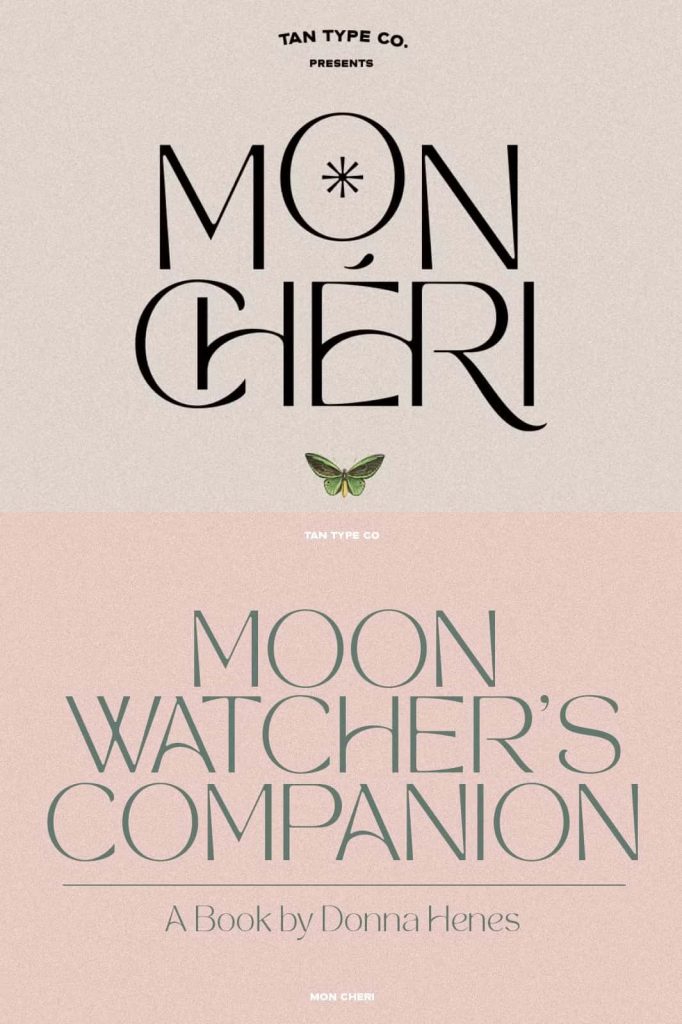
TAN – MON CHERI
TAN – MON CHERI Elegant Sans Serif Font
TAN – MON CHERI is an elegant sans serif font designed to bring simplicity, charm, and modern sophistication into your typography. With its clean letter shapes and carefully crafted details, this typeface offers a refined aesthetic that works beautifully across a wide range of design projects. It combines minimal structure with playful ligatures, allowing designers to create visually engaging compositions while maintaining excellent readability.
Clean and Modern Letterforms
TAN – MON CHERI focuses on clarity and balance. Its simple letter shapes create a clean foundation that supports both subtle and bold design directions. The font avoids unnecessary complexity, ensuring that each character remains easy to read while still contributing to an overall elegant appearance.
This modern approach makes the font highly adaptable. Whether you are designing for digital platforms or print materials, TAN – MON CHERI delivers consistent performance and a polished look. Its clean structure helps your content stand out without overwhelming the viewer.
Playful Ligatures for Creative Expression
One of the defining features of TAN – MON CHERI is its playful ligatures. These unique character combinations add personality and variation to your typography, helping your designs feel more dynamic and less mechanical. Instead of relying on repetitive letterforms, you can introduce subtle stylistic changes that enhance visual interest.
The ligatures integrate seamlessly into the font, ensuring that they complement the overall design rather than distract from it. Designers can use them selectively to highlight specific words or create distinctive typographic styles.
High Legibility Across All Uses
Despite its decorative elements, TAN – MON CHERI maintains high legibility in every context. The font’s balanced proportions and clear spacing ensure that text remains easy to read, even when used in longer passages or smaller sizes. This makes it suitable for both display and functional typography.
Designers can confidently use this font for headlines, subheadings, and even body text when appropriate. Its readability ensures that your message remains clear while still benefiting from the font’s elegant style.
Versatile for Branding and Editorial Design
TAN – MON CHERI adapts effortlessly to various design applications. It works particularly well in branding projects where a clean yet distinctive visual identity is essential. The font communicates professionalism while still offering a touch of creativity through its ligatures and refined details.
In editorial design, it helps create structured and visually appealing layouts. Use it for magazine headlines, feature titles, or promotional materials to achieve a modern and cohesive look. Its versatility allows you to maintain consistency across different types of content.
Perfect Balance of Simplicity and Style
This font strikes a careful balance between simplicity and expression. Its minimal design ensures clarity, while its subtle decorative features add character and uniqueness. This combination makes TAN – MON CHERI suitable for projects that require both professionalism and personality.
Designers can use it to create logos, packaging, social media graphics, and marketing materials. Its adaptability allows it to fit a wide range of visual styles, from minimalist to more expressive and creative layouts.
Enhance Your Visual Identity
TAN – MON CHERI helps you build strong and memorable visual identities. Its elegant appearance conveys sophistication, while its playful elements make your designs feel approachable and engaging. This balance is especially valuable for brands that want to stand out without appearing overly complex.
By pairing this font with complementary typefaces, you can create layered typography systems that enhance your overall design. Use it as a primary font for headlines or as a supporting element to add variation and depth.
Create Modern and Memorable Designs
TAN – MON CHERI empowers designers to create typography that feels both modern and timeless. Its clean structure ensures long-term usability, while its unique details keep your designs fresh and engaging. Whether you are working on branding, editorial projects, or digital content, this font provides the flexibility and style you need.
With TAN – MON CHERI, you can transform simple text into a refined visual experience that captures attention and communicates effectively. It stands as a reliable choice for designers who value clarity, elegance, and creative expression in their work.